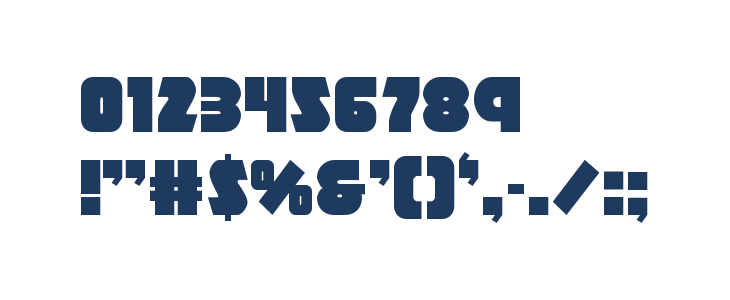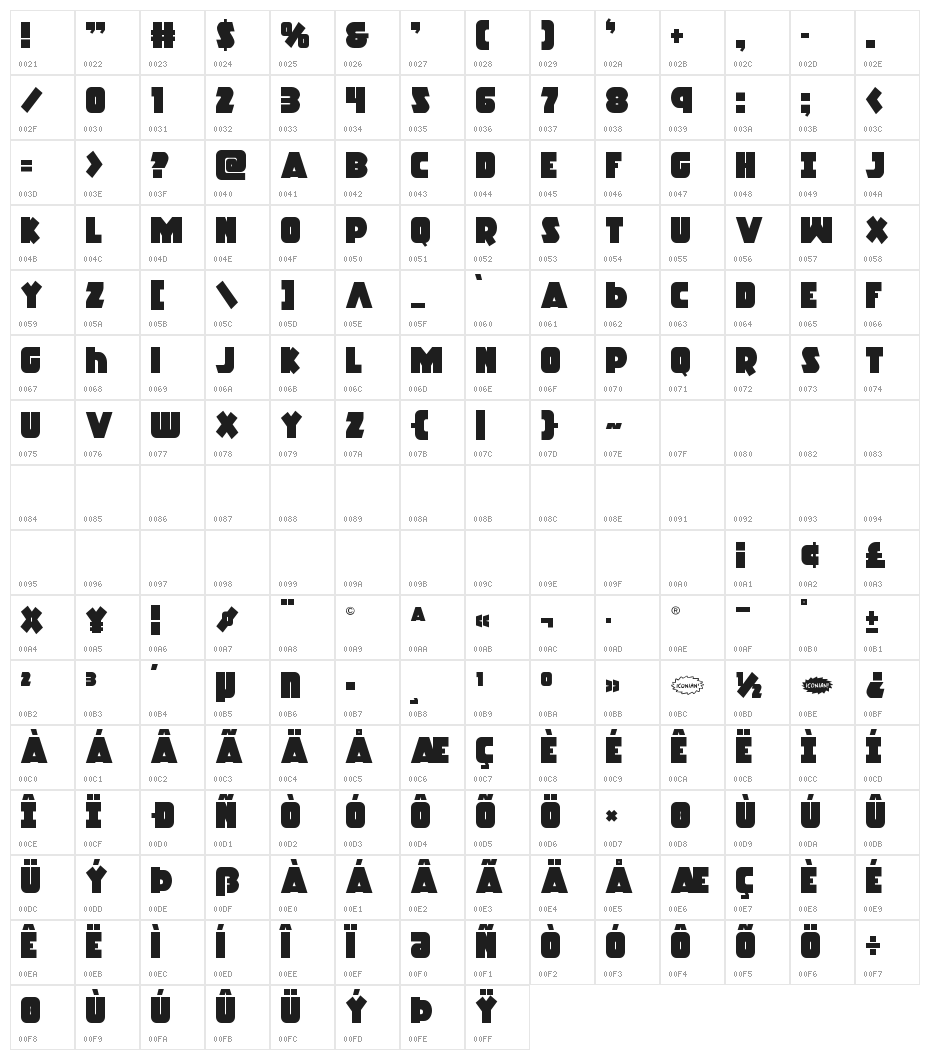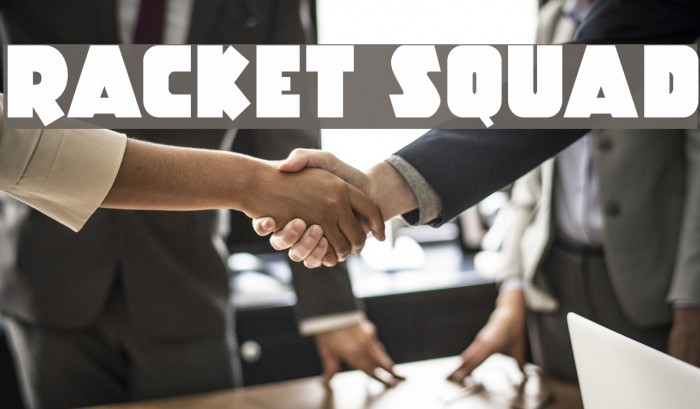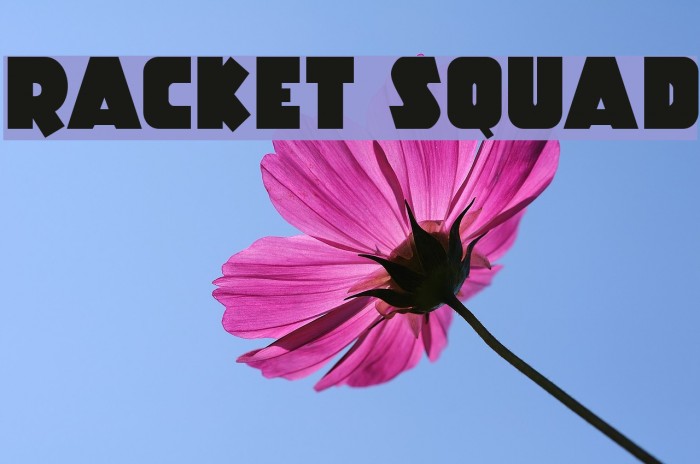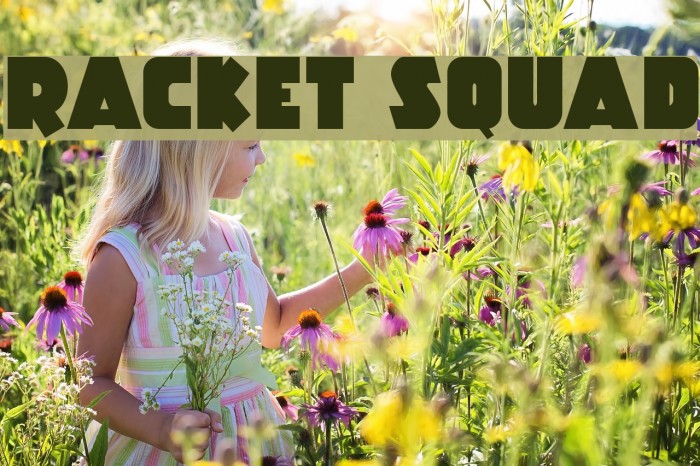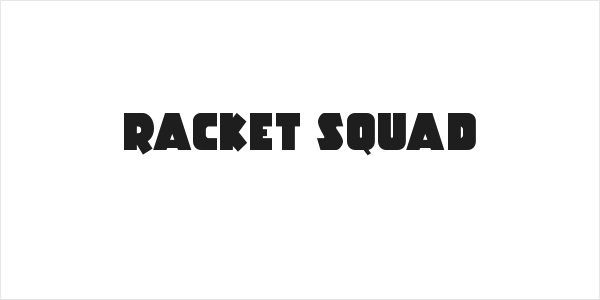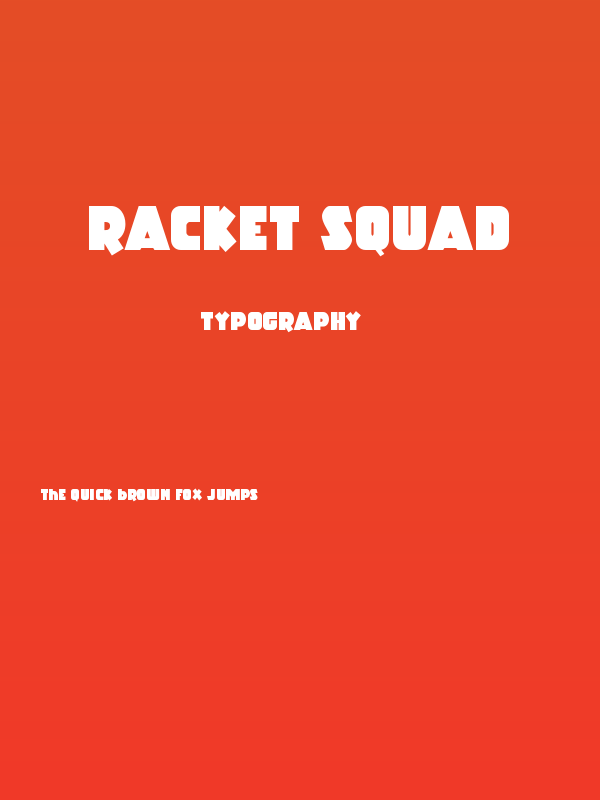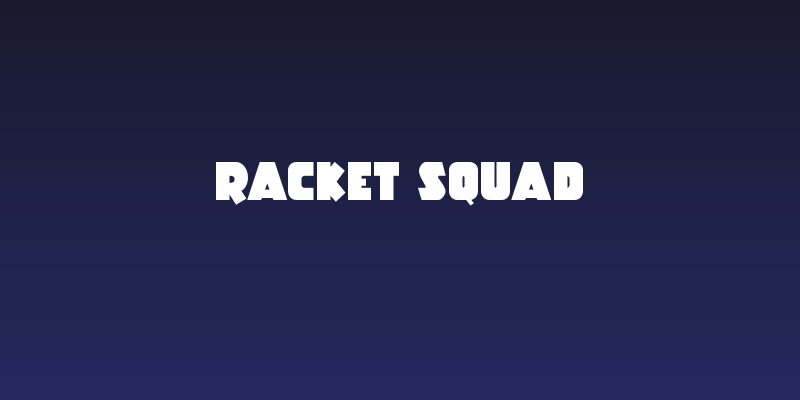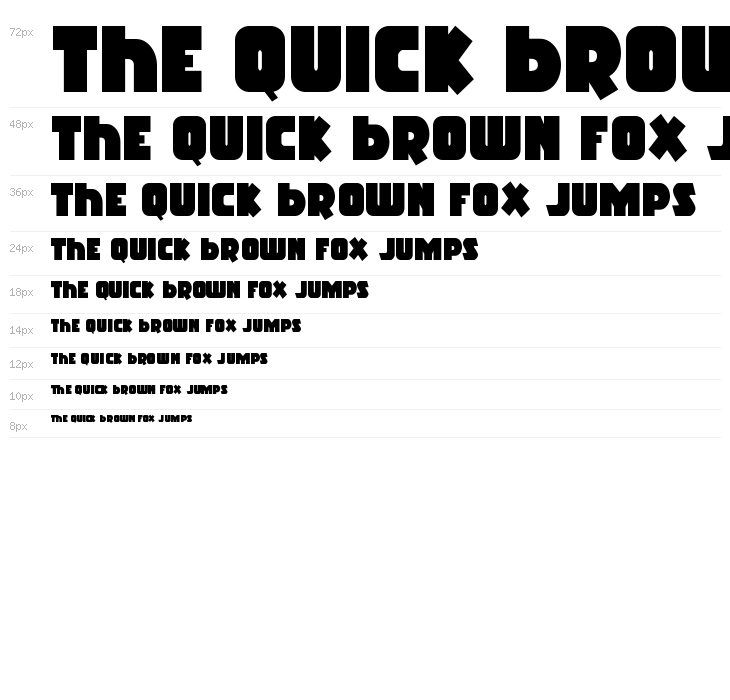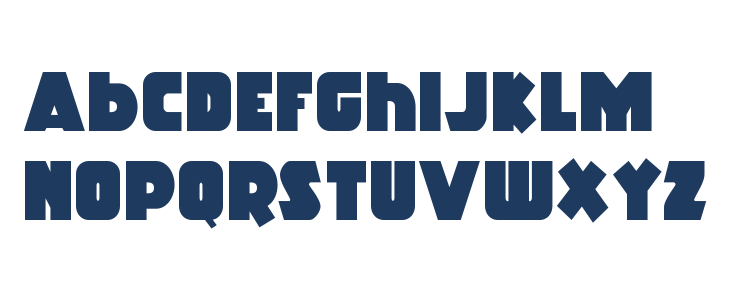
Racket Squad Font
Racket Squad Description
This bold, geometric font features strong, angular lines and a distinct, blocky appearance. The uppercase and lowercase letters maintain a consistent weight, creating a uniform look. The numbers and special characters follow the same bold style, ensuring cohesion across all elements. The font's design is reminiscent of industrial or futuristic themes, with its sharp edges and solid structure. It is highly legible, making it suitable for impactful headlines or titles. The uniformity in stroke width across characters gives it a robust and commanding presence.
| Overall Style | Futuristic, Industrial |
| Proposed Projects | Ideal for posters, logos, video game graphics, and any project requiring a bold, futuristic aesthetic. |